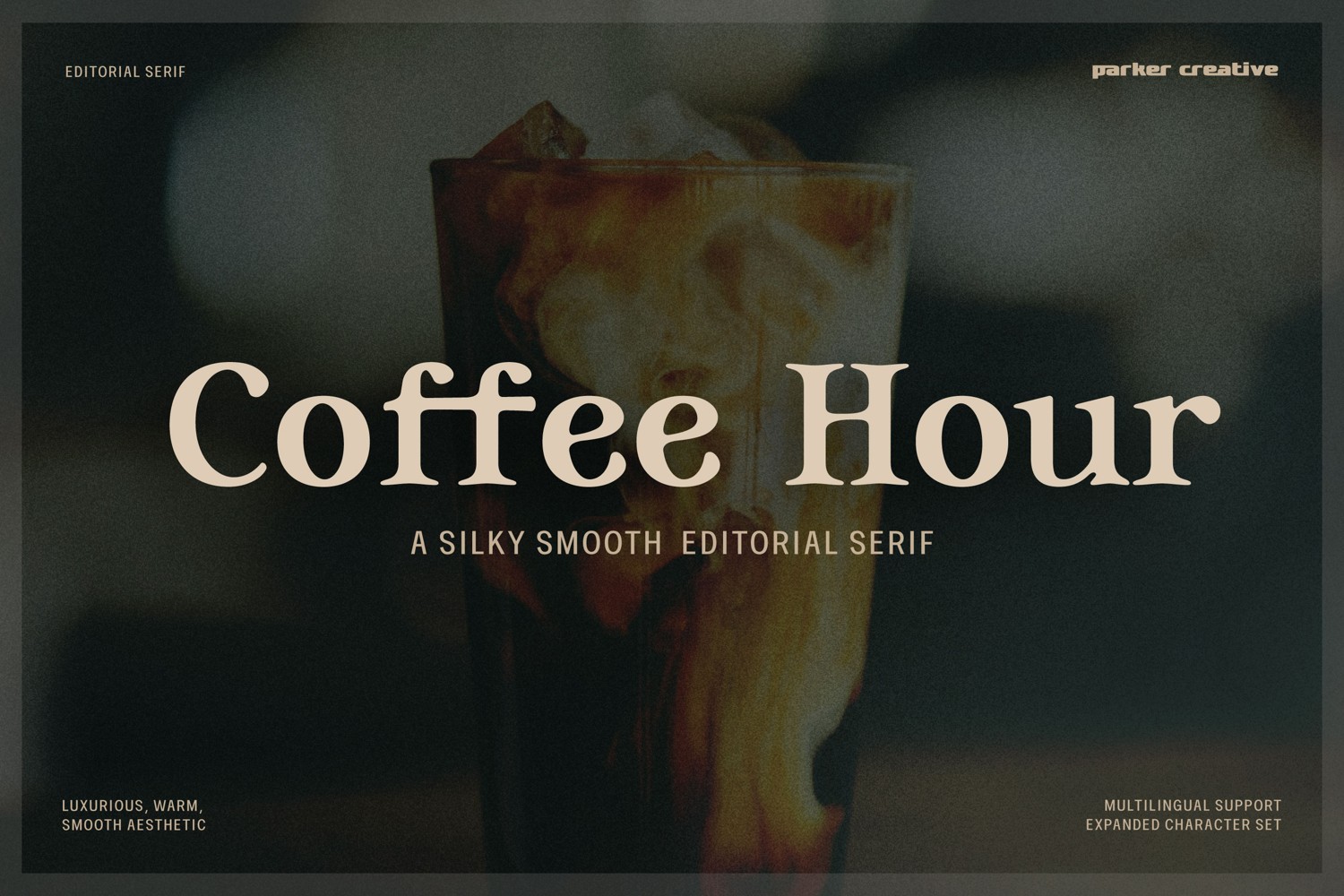
Coffee Hour | A Cafe Branding Font
Introducing Coffee Hour, a handcrafted, modern serif typeface designed to capture the warm, inviting spirit of contemporary café culture. Whether you are designing a high-end coffee shop logo, an artisan bakery menu, or luxurious product packaging, Coffee Hour is the perfect silky-smooth editorial serif to elevate your brand.
Timeless Elegance Meets Bright Personality
Coffee Hour perfectly balances classic and contemporary typography. It blends elegant old-style serifs and angled counters with signature curvy terminals and smooth shape transitions. The result is a highly legible display font with a distinctive, luxurious aesthetic.
Custom Hand-Lettered Feel
To give your branding an authentic, custom-tailored look, Coffee Hour includes a rich collection of standard and discretionary ligatures. Distinctive character pairings like ‘cc’, ‘gg’, ‘ft’, and ‘ff’ effortlessly create stunning visual flow for words like ‘Cappuccino’ and ‘Affogato Al Caffè’.
Ideal for Your Next Design Project
- Coffee Shop & Restaurant Branding
- Menu Design & Signage
- Food & Beverage Packaging
- Editorial Layouts & Magazine Covers
- Social Media Quotes & Instagram Graphics
- Boutique Logos & Identity Systems